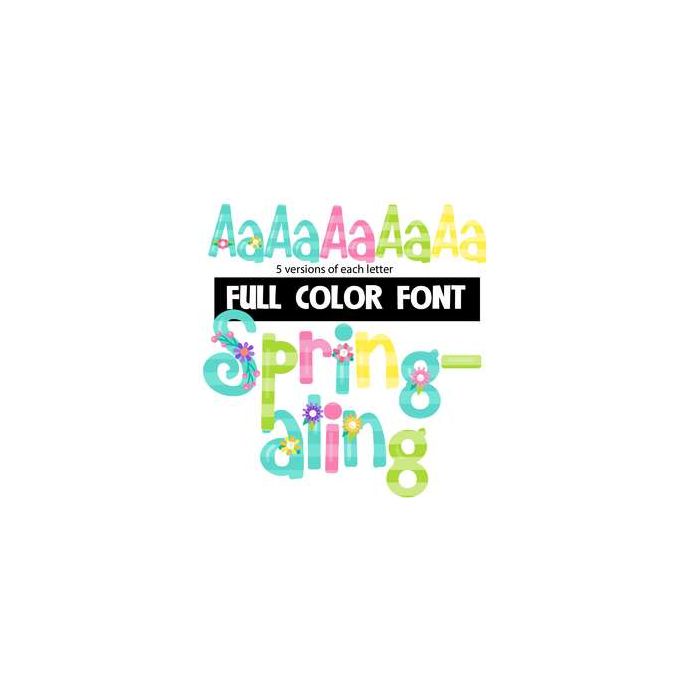
This full-color font features spring and summer flowers on striped letters. There is several alt cases you can access through Silhouette's glyph map for more colors.